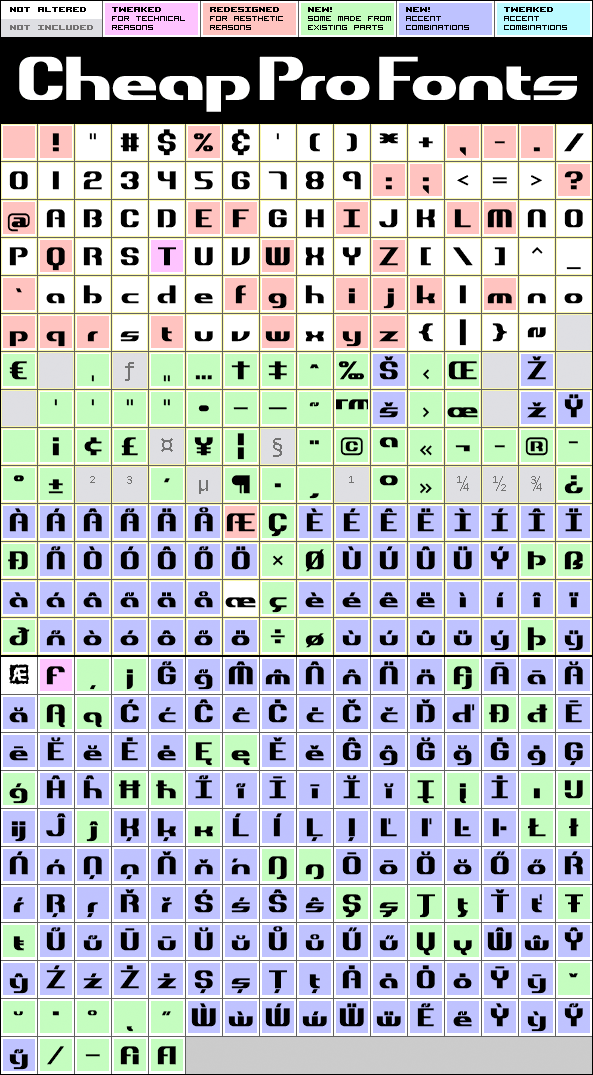
Dynamic by name, and dynamic by nature - this sleek font is perfect for logos and hightech quotes ;) The original lowercase f had a big overhang - I redesigned it so it fits better with accented letters, but also kept the original shape as a contextual alternate: the font automatically uses the "large" f before any low letters... Also the lowercase j would crash into any preceding letters with a righthand descender - so I also designed an automatic alternate j. Result: no colliding letters! :)
Dynamic BRK Pro is a professionally reworked font that contains an extended character set for setting text in 65 languages requiring more than the basic A-Z!